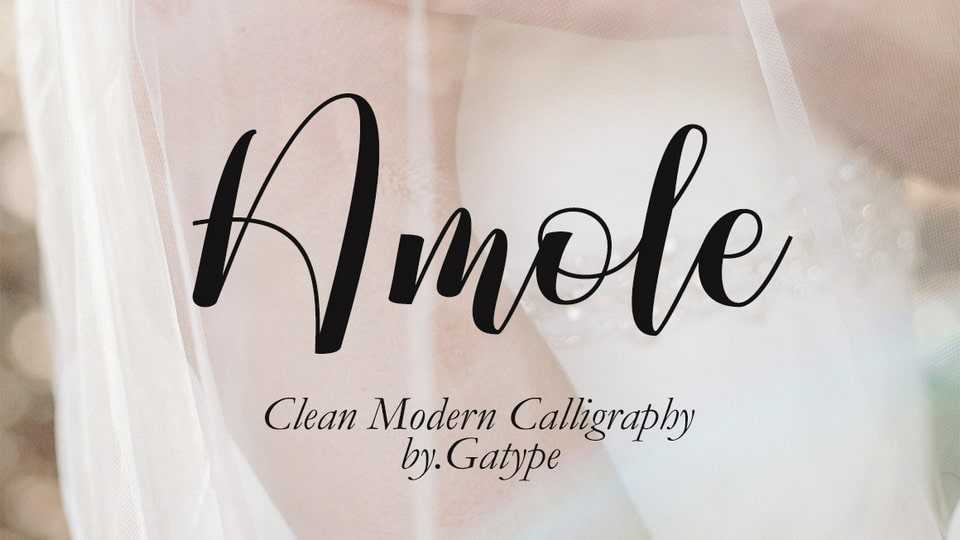
Download Amole font, a script that comes with great character. Ideal for invitations, name tags, handwritten quotes, product packaging, merchandise, social media and greeting cards and so on.